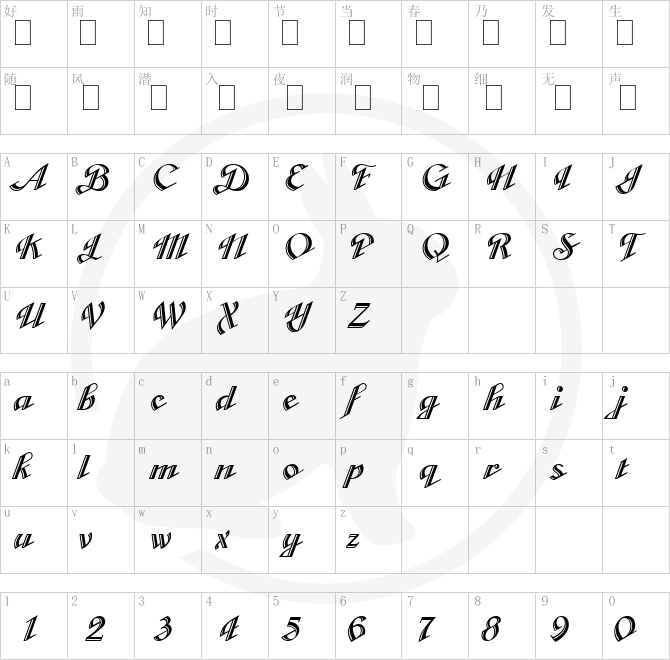
- Font Name:Cabarga Cursiva LET
Cabarga-Cursiva-LET-Plain-10.ttf is a very beautiful artistic font, Cabarga-Cursiva-LET-Plain-10.ttf is widely used in the design and printing of various books and pictures,Cabarga-Cursiva-LET-Plain-10.ttf has a strong visual impact,Cabarga-Cursiva-LET-Plain-10.ttf is a commonly used font in newspapers, magazines and books, and is used in posters, e-commerce Poster design, store design, logo design, font design and other fields.Cabarga-Cursiva-LET-Plain-10.